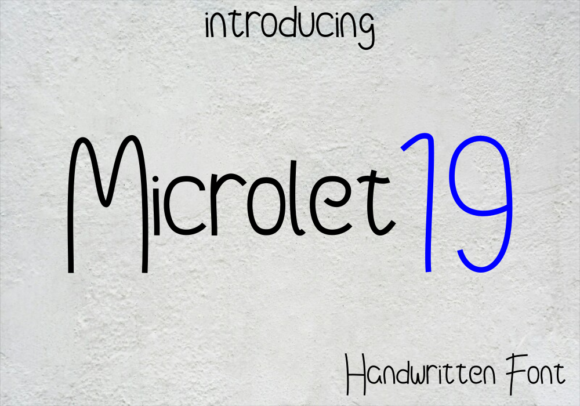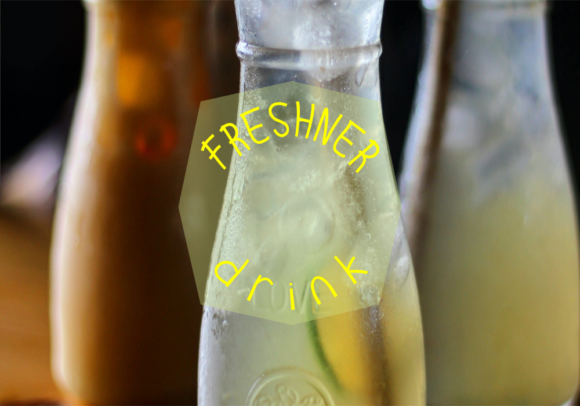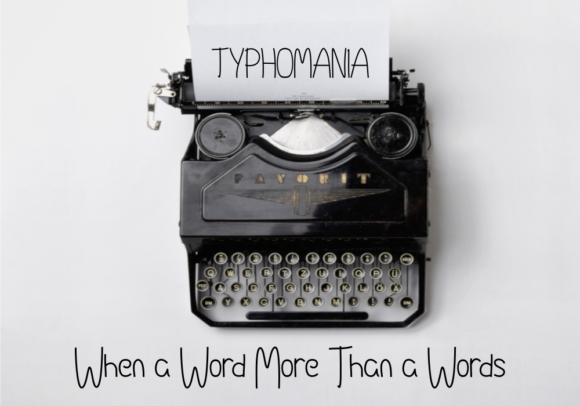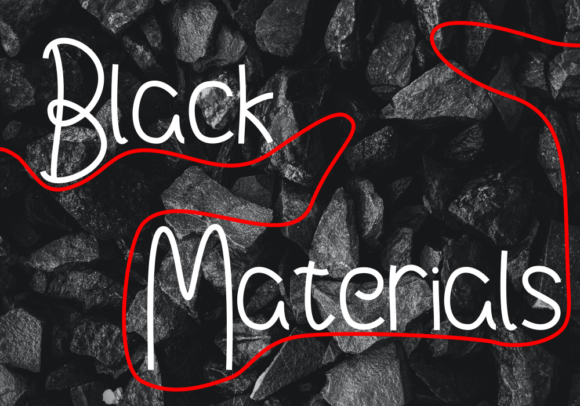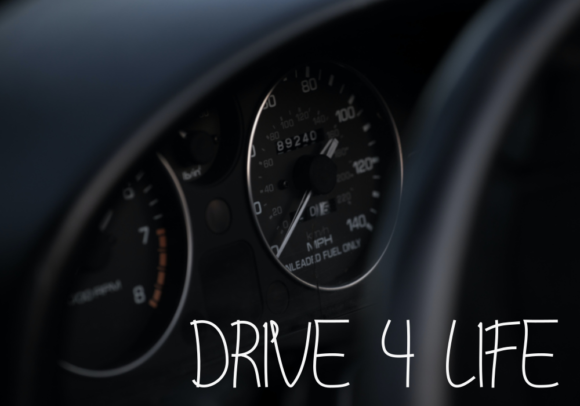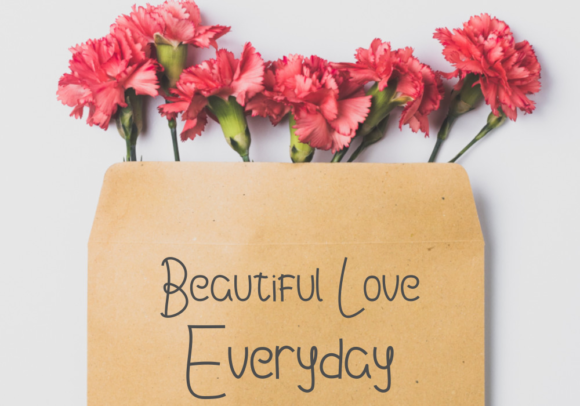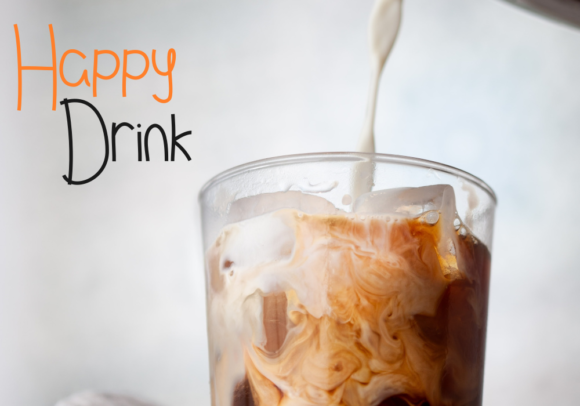
Microlet19 Font
About Microlet19 Font
Microlet19 is a cute and simple lettered handwritten font that can be used for all chalkboard quotes or teaching material! Its authentic look will add a personal and realistic feel to your designs.